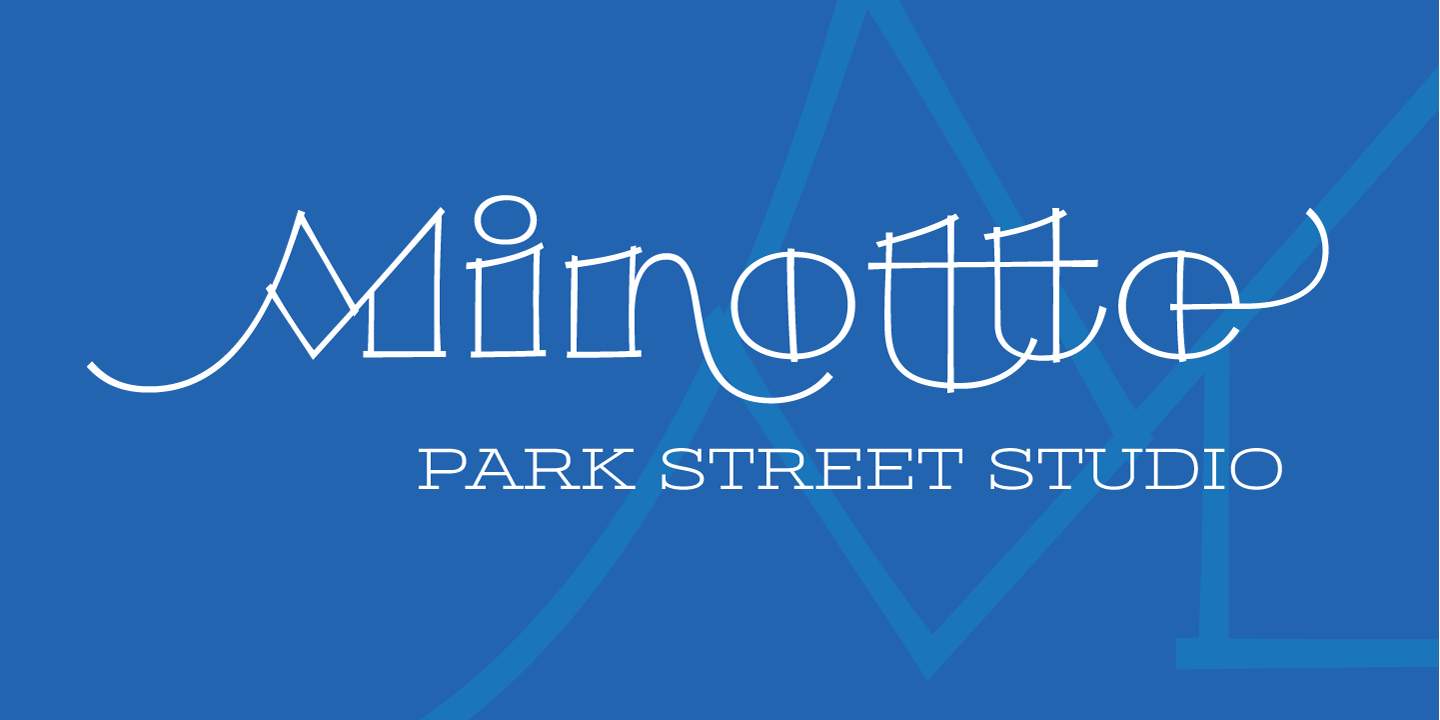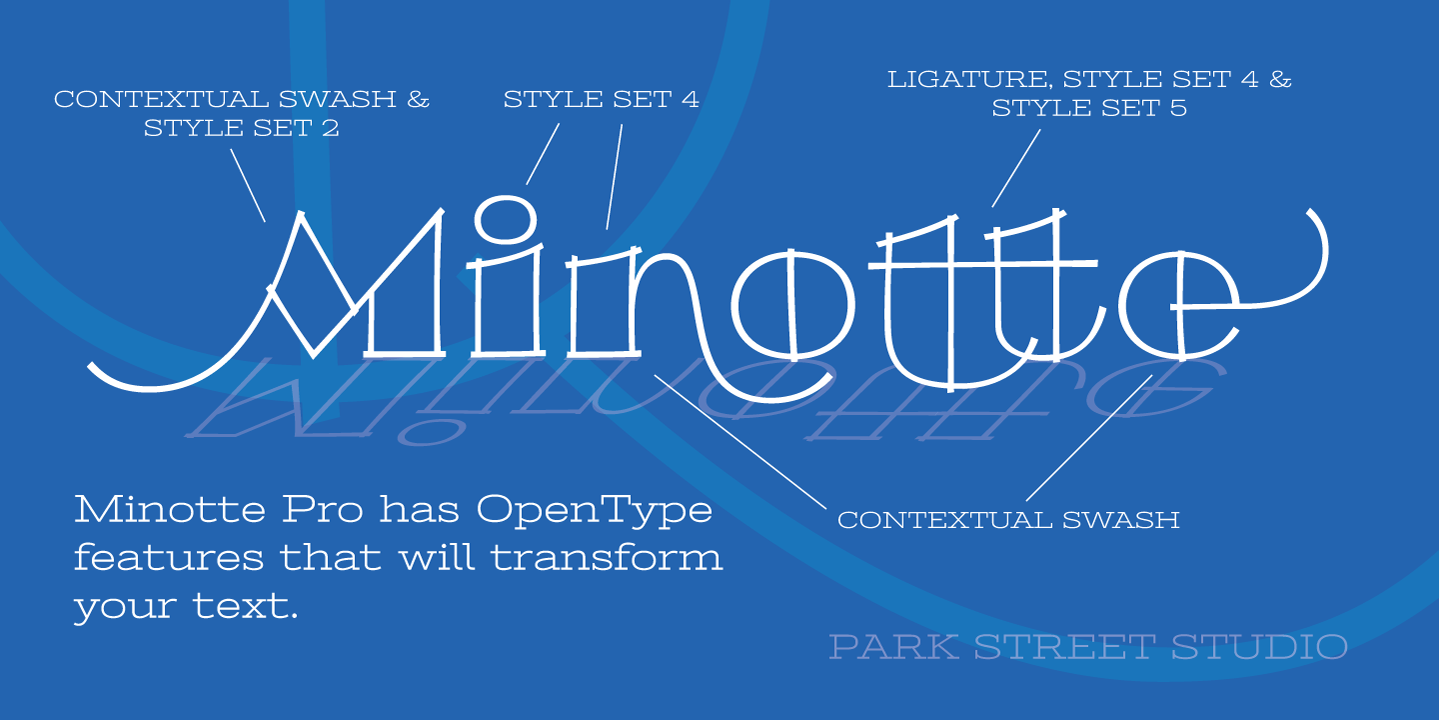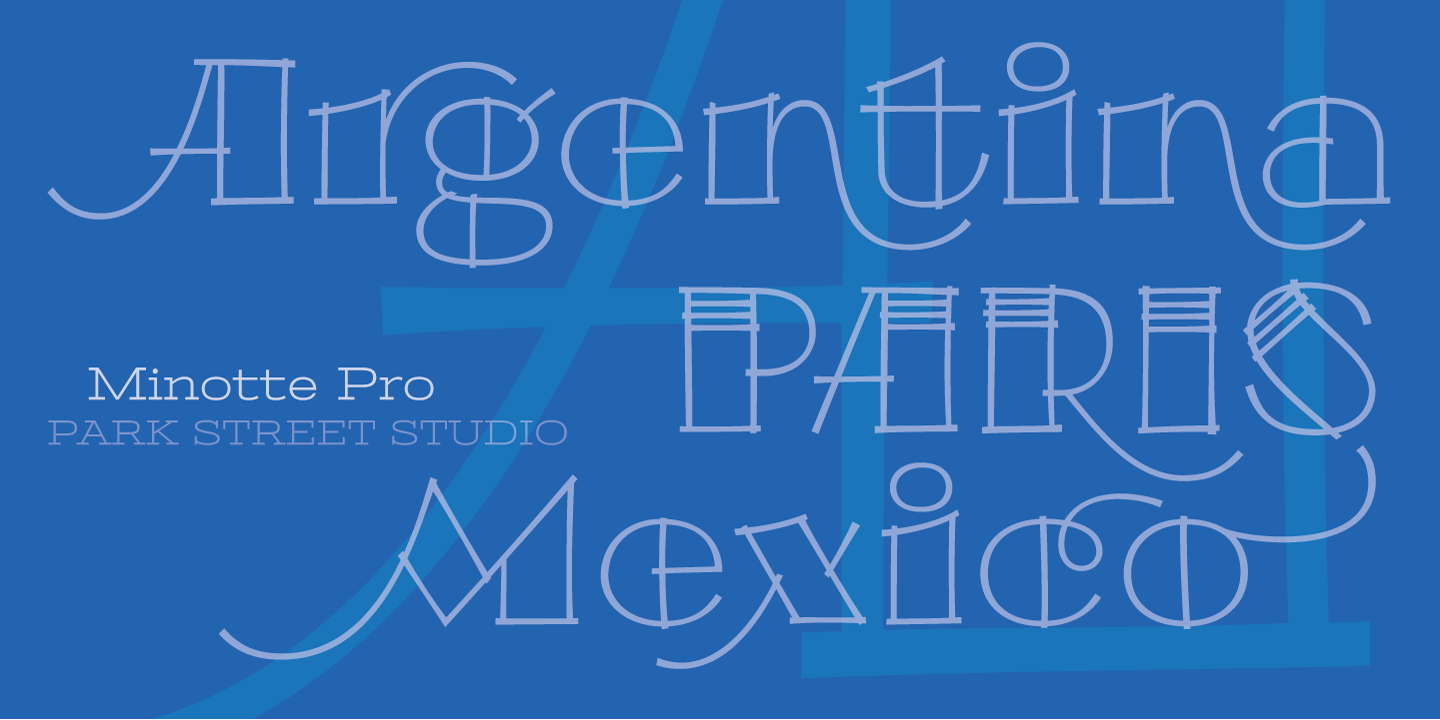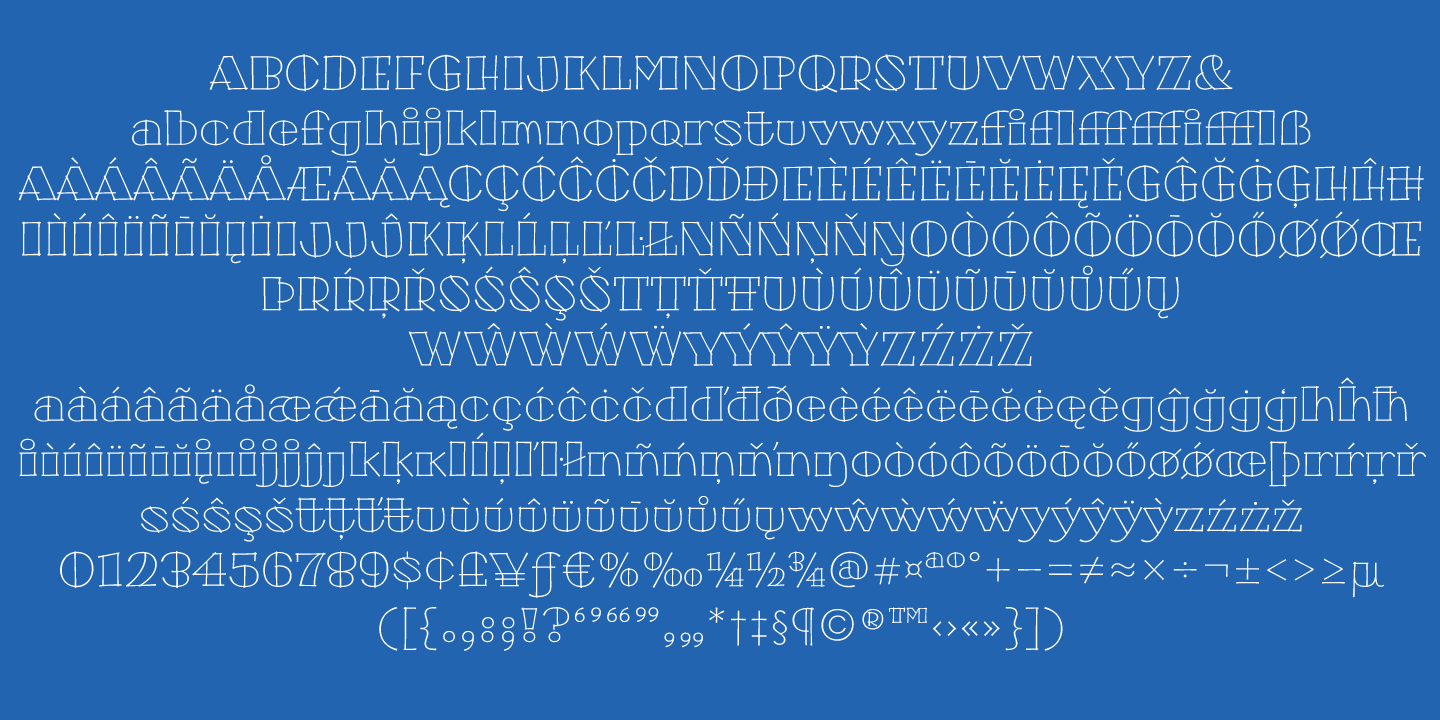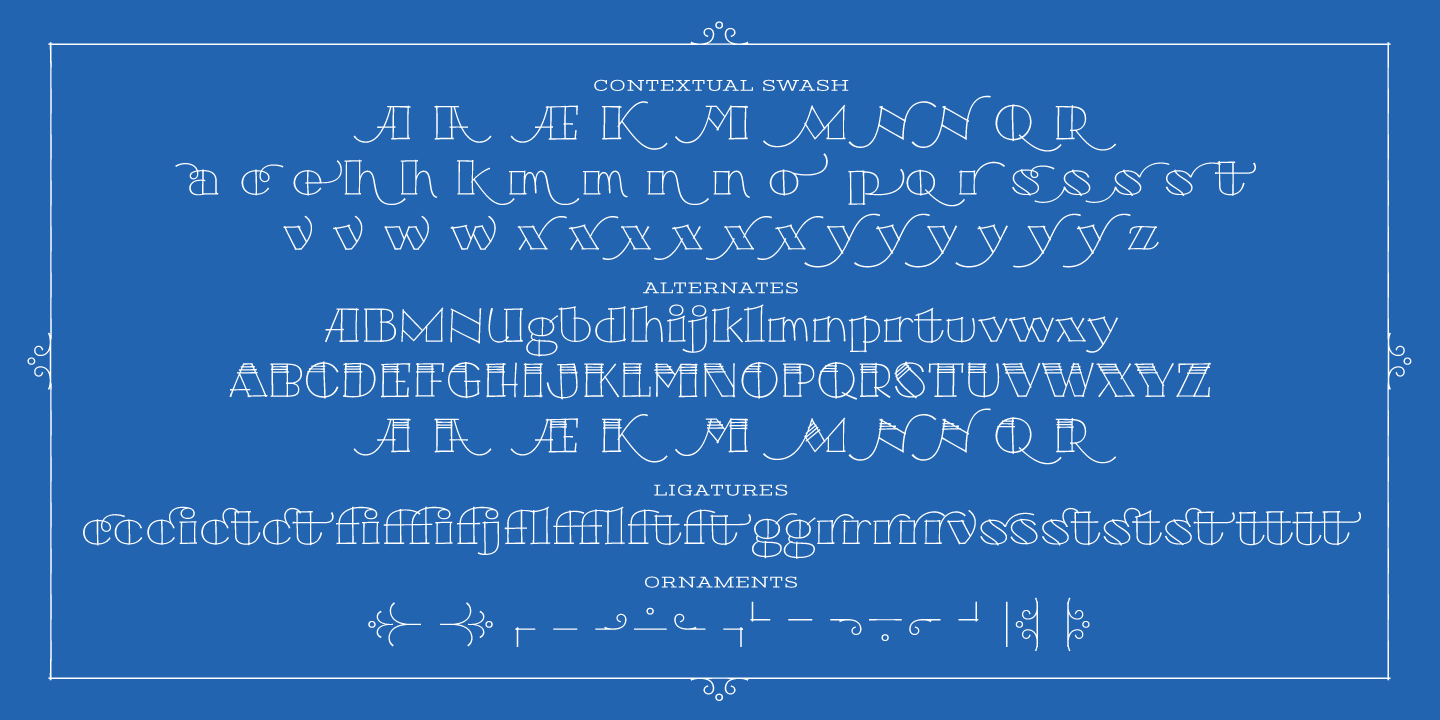
Minotte Pro
Buy NowOriginally conceived while sketching outline typefaces for a client, Minotte Pro has blossomed into a font one thousand glyphs strong and is chocked full of alternates and contextual swashes! By enabling swashes, style sets, and contextual alternates in your OpenType savvy application, headlines and text set with Minotte Pro will transform into unique combinations of initial, middle and final swash forms! There's also an alternate Cap set with a partial fill for even greater variety! Perfect for travel ad headlines, Minotte Pro adds a light, carefree touch. If your app doesn't support OpenType, then check out the split out versions, Minotte, Minotte Swash, Minotte Fil and Minotte Swash Fil.
Minotte Pro contains these OpenType features: Contextual Swashes, Stylistic Alternates, Standard & Discretionary Ligatures, 6 Style Sets, Superiors & Inferiors, Fractions and Ornaments. Minotte Pro supports an extended European character set.